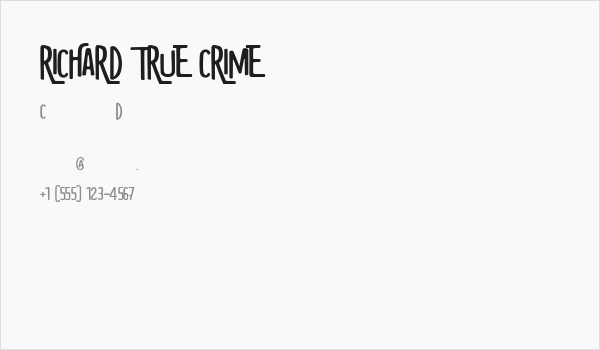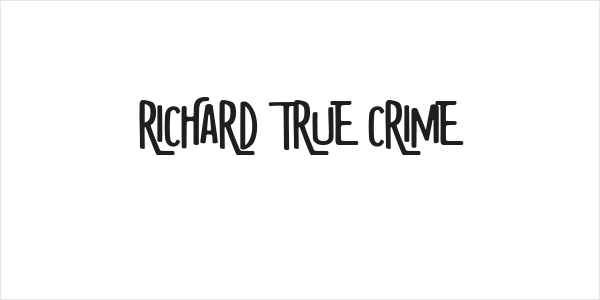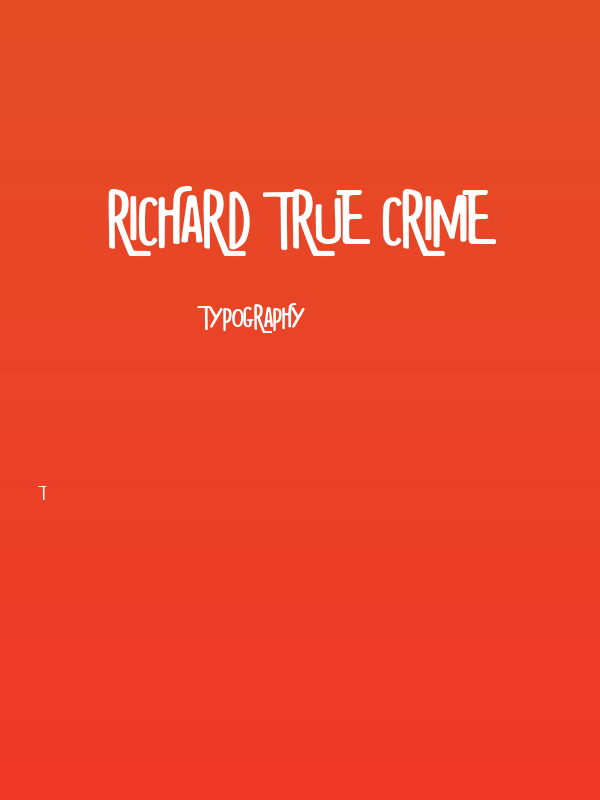
RICHARD TRUE CRIME Font
RICHARD TRUE CRIME Description
This font features a unique and bold style with a modern twist. The uppercase letters are characterized by their tall, narrow forms and slightly curved edges, giving them a distinctive and eye-catching appearance. The lowercase letters maintain a consistent style, complementing the uppercase with their rounded and smooth lines. Numbers are clear and legible, with a slightly playful touch that adds character. Special characters are well-integrated, maintaining the overall aesthetic of the font. The design is versatile, suitable for various creative applications, and stands out with its artistic flair.